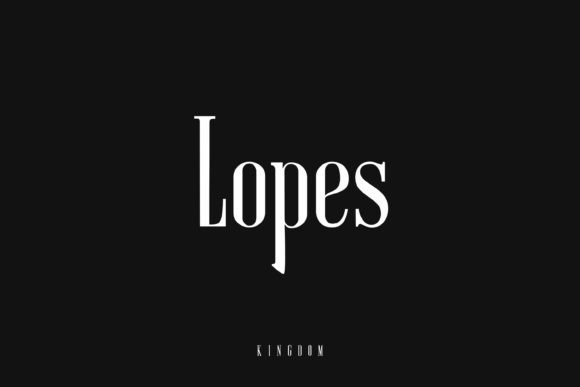
Kingdom Serif Font
Kingdom Serif Font is a unique and modern serif font, perfect for headlines, big text, branding, logotypes, and display usage. This font can be the perfect choice for creating outstanding logos, promotional content, and marketing graphics that can bring uniqueness and freshness at its level best!